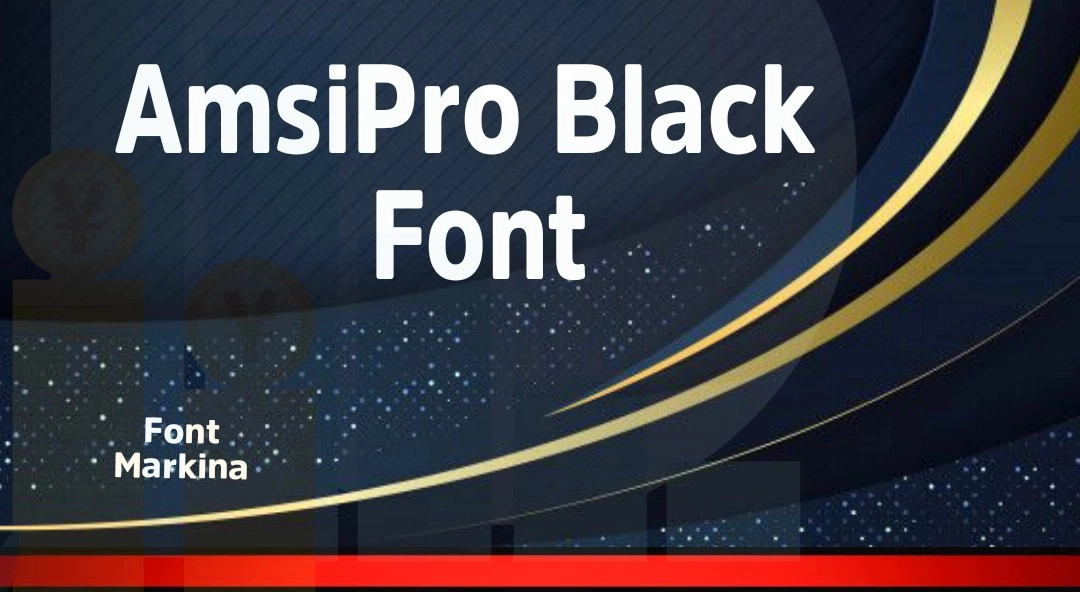
AmsiPro Black Font
AmsiPro Black Font is a marvelous typeface developed by brilliant mind designer Stawix Ruecha. This family lies in the category of sans serif family of fonts. This font comes in 92 styles and six weights. Its bold and thin look style is so famous in the design market.
This font has 129 bold letters that come with uppercase and lowercase letters. It is best for heading styles and fancy title design purposes. The thin weight of this font is best for writing long paragraphs. Its layout is so beautiful and helpful for designers.
Many designers use its different weights and styles in their different text designing and logo designing purposes. The copy and paste function is allowed in its free online generator tool. Due to its unique styles, many fonts are good for pairing with this font known as Arciform Sans font.
Uses of AmsiPro Black  Font
This traditional font has many beneficial uses that are most suitable for designers. You can use it for cursive styles of different essays. This font is perfect for use in tremendous text styles, fabric designs, and book title purposes. It is suitable for contemporary design purposes.
Many designers use its features by making pairs with another playful and gorgeous font known as Arial font. This font is best for use in brochures, vouchers, and different types of fashion design purposes.
Is there any similar typeface to AmsiPro Black Font?
A huge number of similar typefaces to this sans serif font but Morris Sans font is the most alternative texture.
Who is the owner of AmsiPro Black Font?
The main designer and owner of the AmsiPro Black typeface is Stawix Ruecha and this typeface comes in the sans serif family.